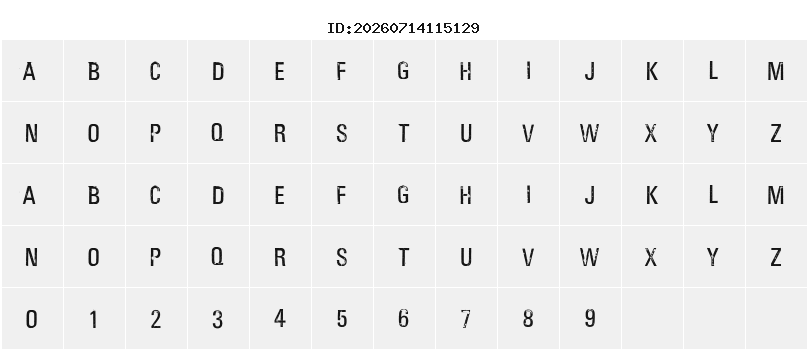
Hector Preview
• Font Name: Hector
• Full Font Name: Hector
About Hector.ttf
Hector.ttf is a modern, elegant sans-serif font designed for ultimate readability and visual harmony. Perfect for branding, headlines, web design, and print materials.